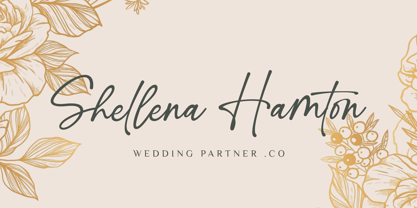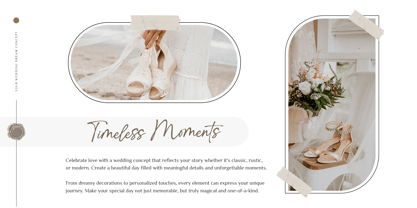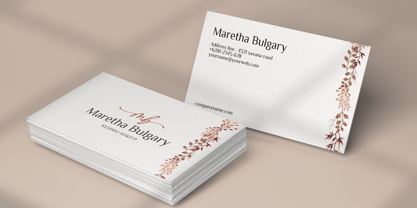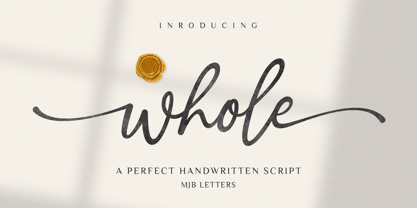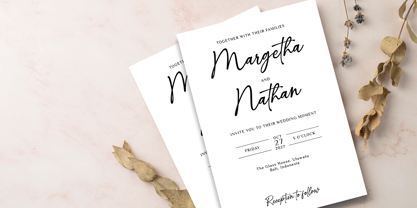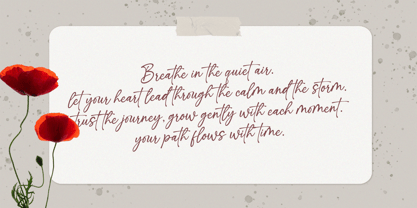
Whole
by MJB Letters
Whole is a beautifully crafted handwritten script that captures elegance and warmth in every stroke. Designed with smooth curves and a natural flow, this font brings a personal and heartfelt touch to your creative projects. Whether you’re designing for romance, branding, or daily inspiration, Whole is the perfect choice to elevate your message.
Perfect for:
– Branding & Logos
– Wedding Invitations
– Quotes & Posters
– Product Packaging
– Social Media & Blogs
– Greeting Cards & Stationery
Features:
– Elegant handwritten style with a flowing finish
– Authentic and natural look
Add a graceful, personal feel to your work with Whole — a script that speaks from the heart.